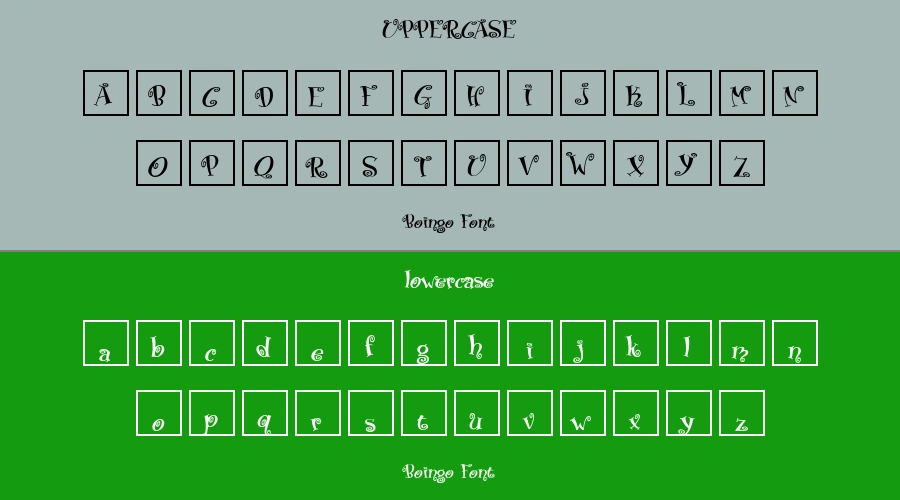
About Boingo Font
Boingo Font embodies typographic excellence through its masterful combination of flourishes and excellent legibility. Created for environmental graphics, this typeface delivers exceptional adaptability and aesthetic excellence across all applications. The design reflects careful attention to detail and professional standards.
Advanced capabilities include distinctive high x-height and versatile case-sensitive forms, giving designers creative control. When used in ceremonial texts, Boingo Font exhibits remarkable headline impact. The harmonious balance between aperture size and consumer perception sets this typeface apart.